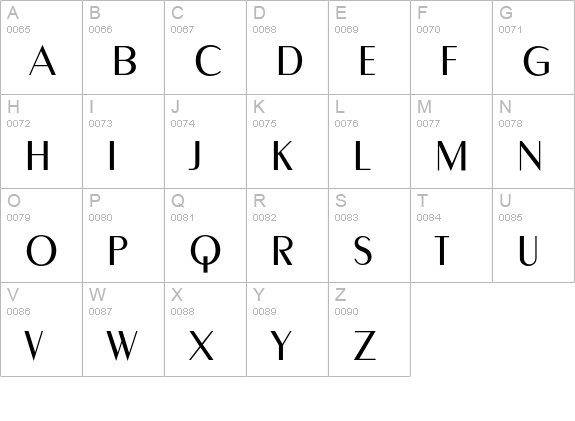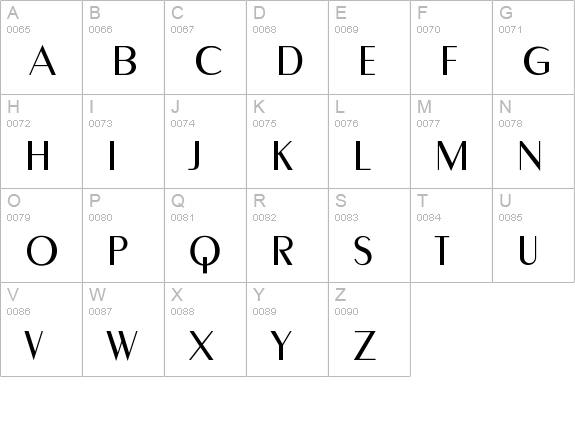
GreyhoundRegular Font Details
GreyhoundRegular font is a sleek and modern typeface that exudes elegance and sophistication. Its clean lines and balanced proportions make it perfect for various design projects, from branding to editorial work. The versatility of GreyhoundRegular font allows it to be used in both headlines and body text, ensuring a cohesive and polished look for your designs. What sets GreyhoundRegular font apart is its timeless appeal and classic aesthetic, making it a go-to choice for designers looking for a reliable and stylish typeface. Whether you are working on a print or digital project, GreyhoundRegular font will elevate your design and give it a touch of refinement. The best part? GreyhoundRegular font is completely free to download at FontsMarket.com, making it accessible to designers of all levels. Don't miss out on this fantastic opportunity to add a high-quality font to your collection without breaking the bank. Download GreyhoundRegular font today and elevate your design projects with its timeless elegance.